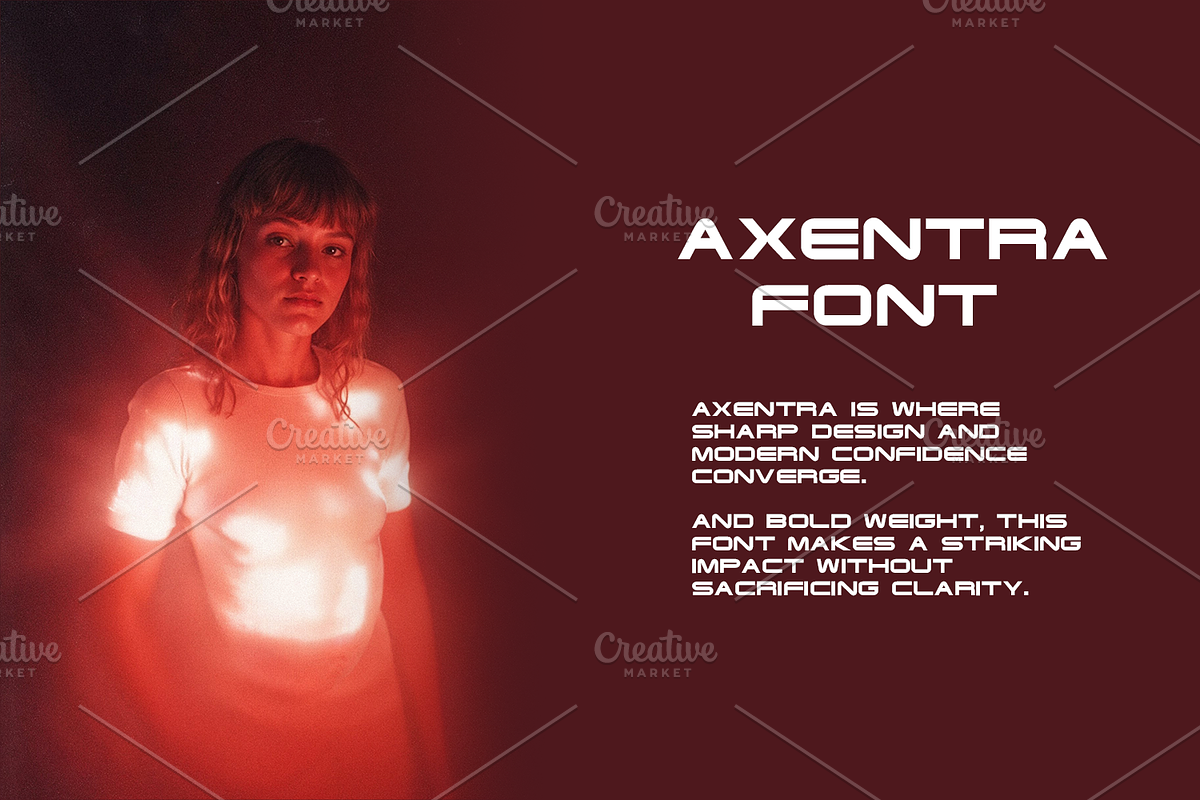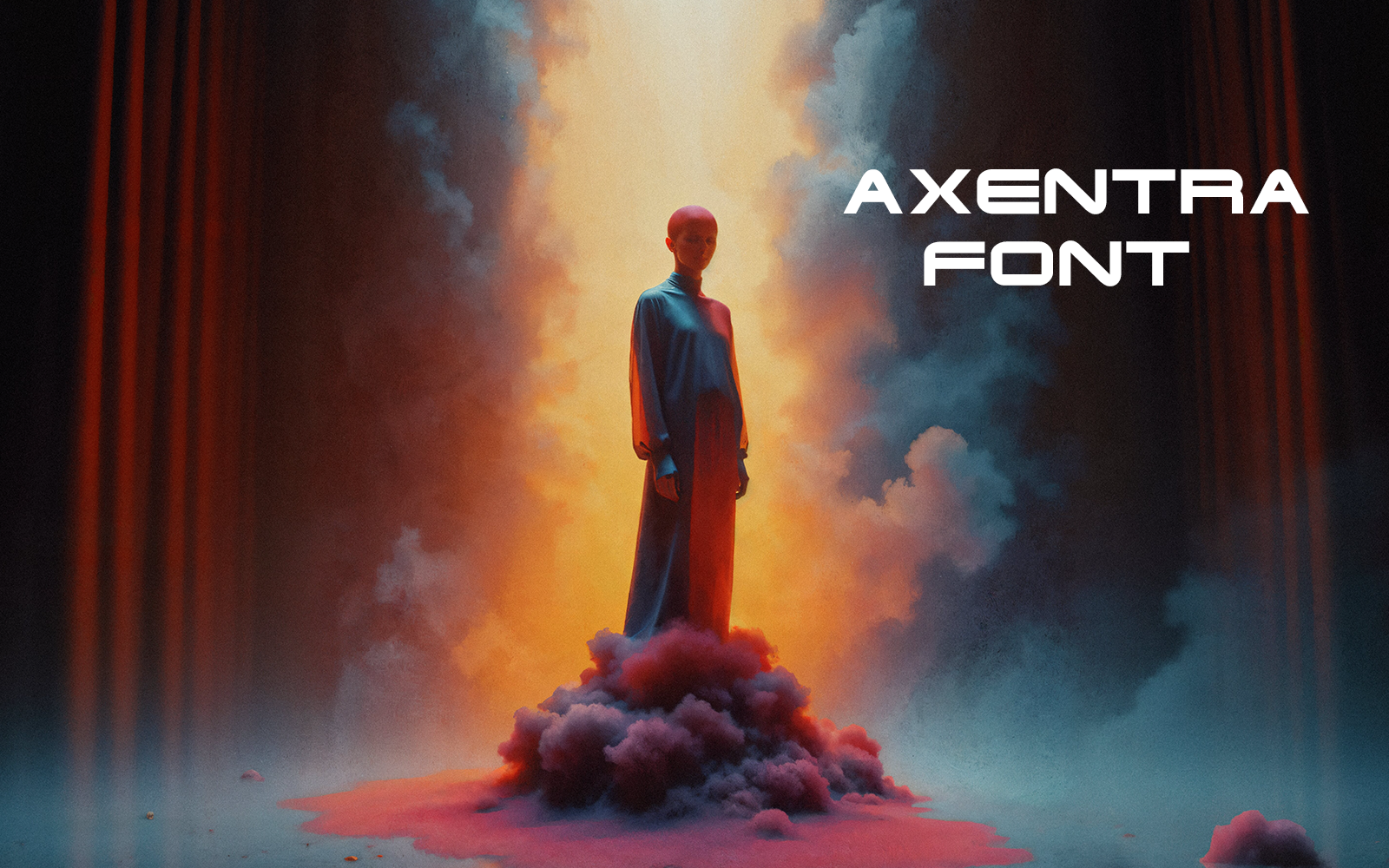
Axentra font- Bold-0111-25
Precision Meets Power.
Axentra Bold is where sharp design and modern confidence converge. With its semi-expanded form and bold weight, this font makes a striking impact without sacrificing clarity.
Designed for those who want their message to command attention, Axentra is perfect for high-tech interfaces, editorial layouts, and cutting-edge branding.
Own your message. Shape your future — in bold.